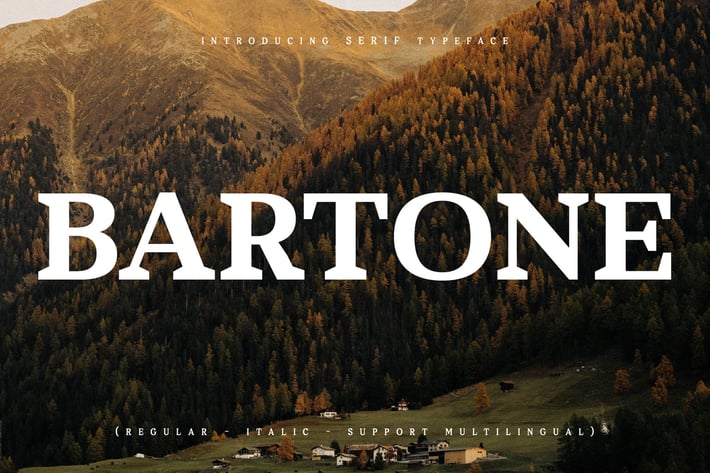
Bartone Serif Typeface Font
Bartone is a refined serif typeface that embodies timeless elegance and classic strength. With its bold letterforms and clean proportions, Bartone is designed to bring a sense of sophistication and professionalism to any project. Perfectly balanced between traditional charm and modern appeal, this typeface works beautifully for branding, editorials, and high-end visual designs.
Elegant serif style
Regular & Italic versions
Uppercase & lowercase letters
Numbers, punctuation & symbols
Branding & logo design
Editorial & magazine layouts
Packaging & product design
Posters & advertising
Wedding invitations
* Luxury and fashion projects
Craft elegance and authority in your design with Bartone — a timeless serif typeface built for sophistication and style.